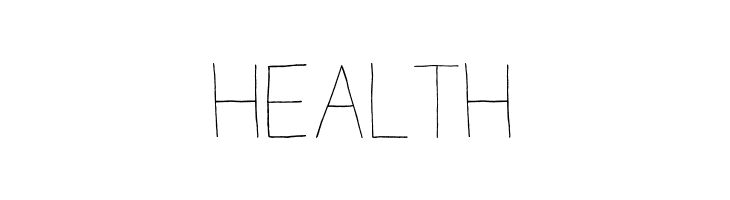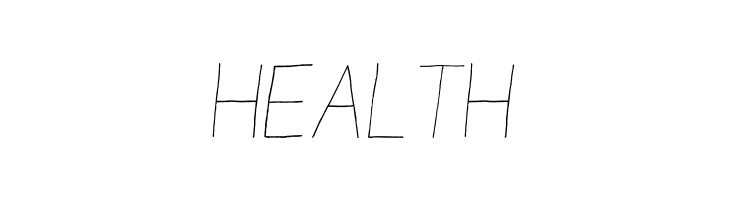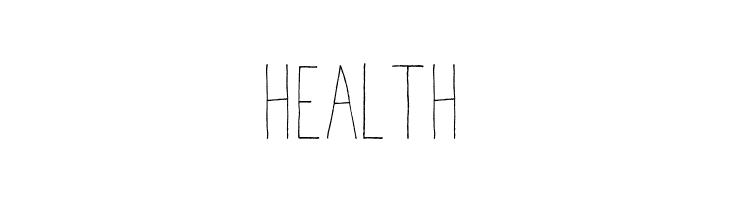
A sleek, ultra-condensed italic font with a modern and dynamic style.
A slender, condensed font with thin, consistent strokes and a minimalistic design.
A slender, condensed, and italicized font with a modern and elegant style.
A hand-drawn, condensed font with a playful and informal style.
A condensed, hand-drawn font with a playful and sophisticated style.
A modern, condensed italic font with uniform strokes and a dynamic slant.
A condensed, handwritten font with a slight italic slant and uniform strokes.
A thin, hand-drawn font with a whimsical and organic style.